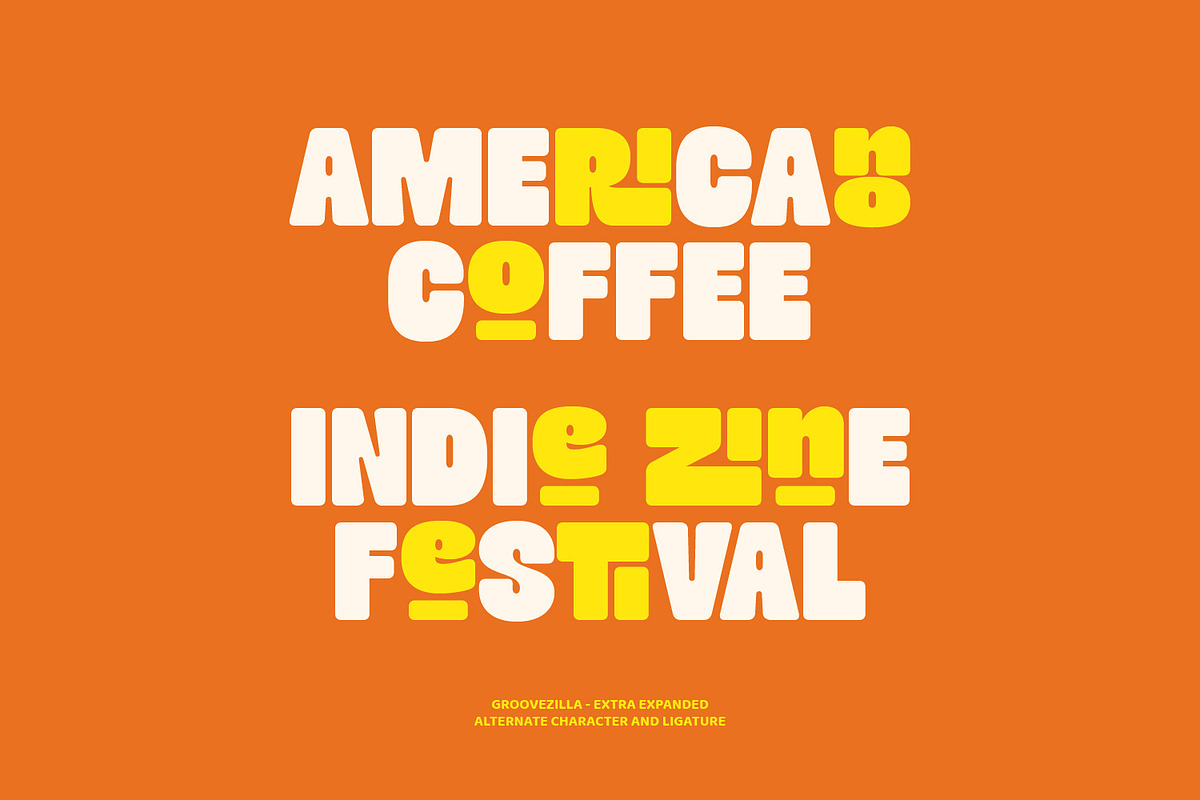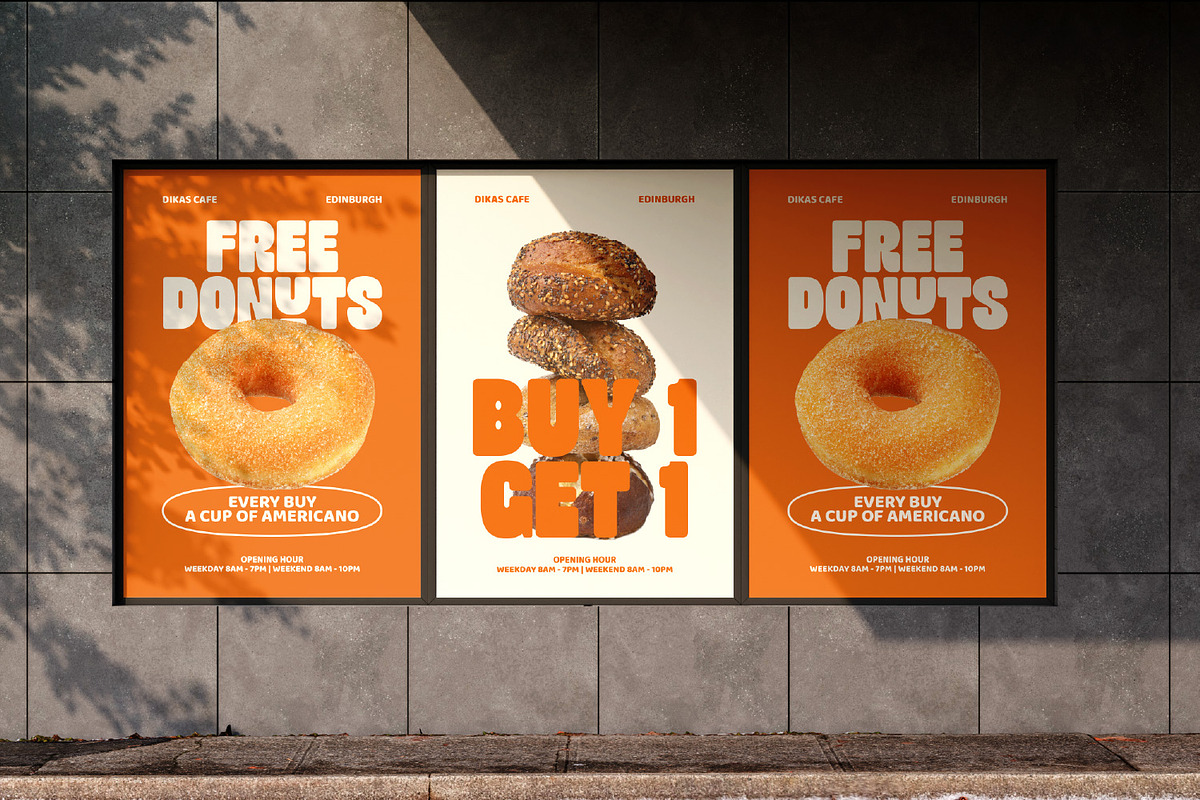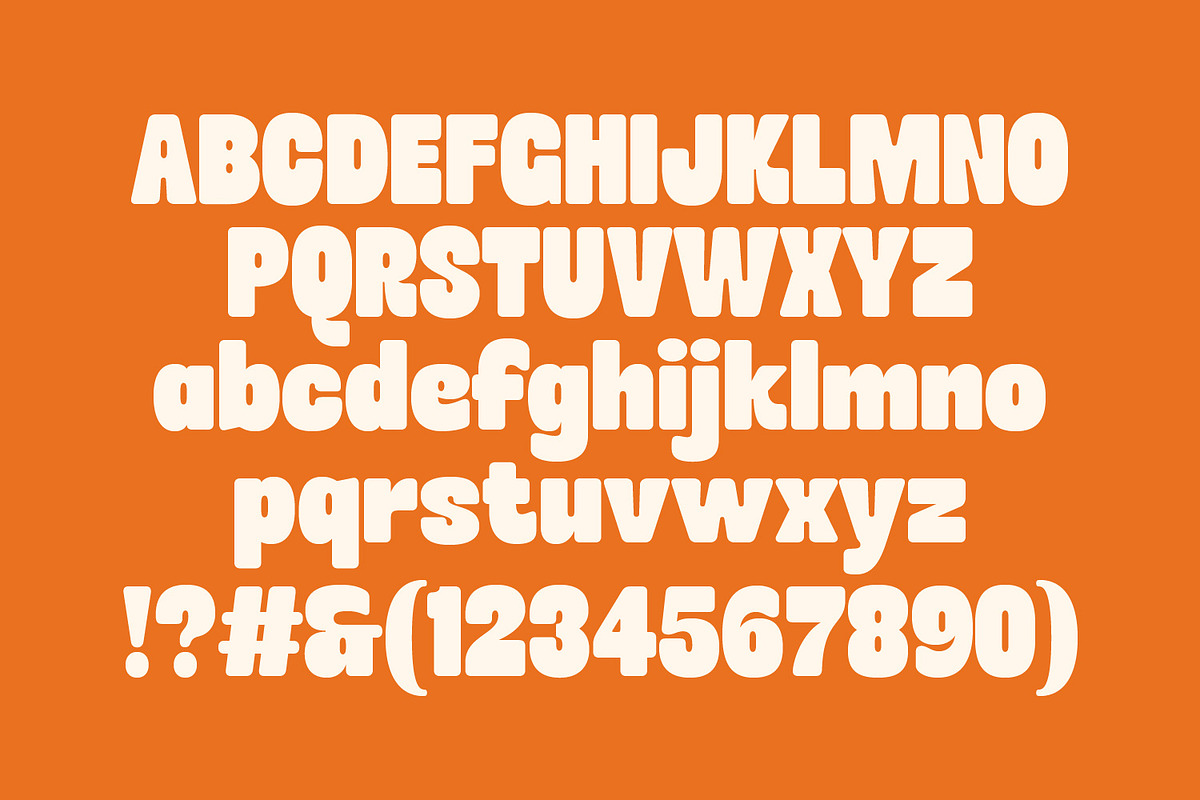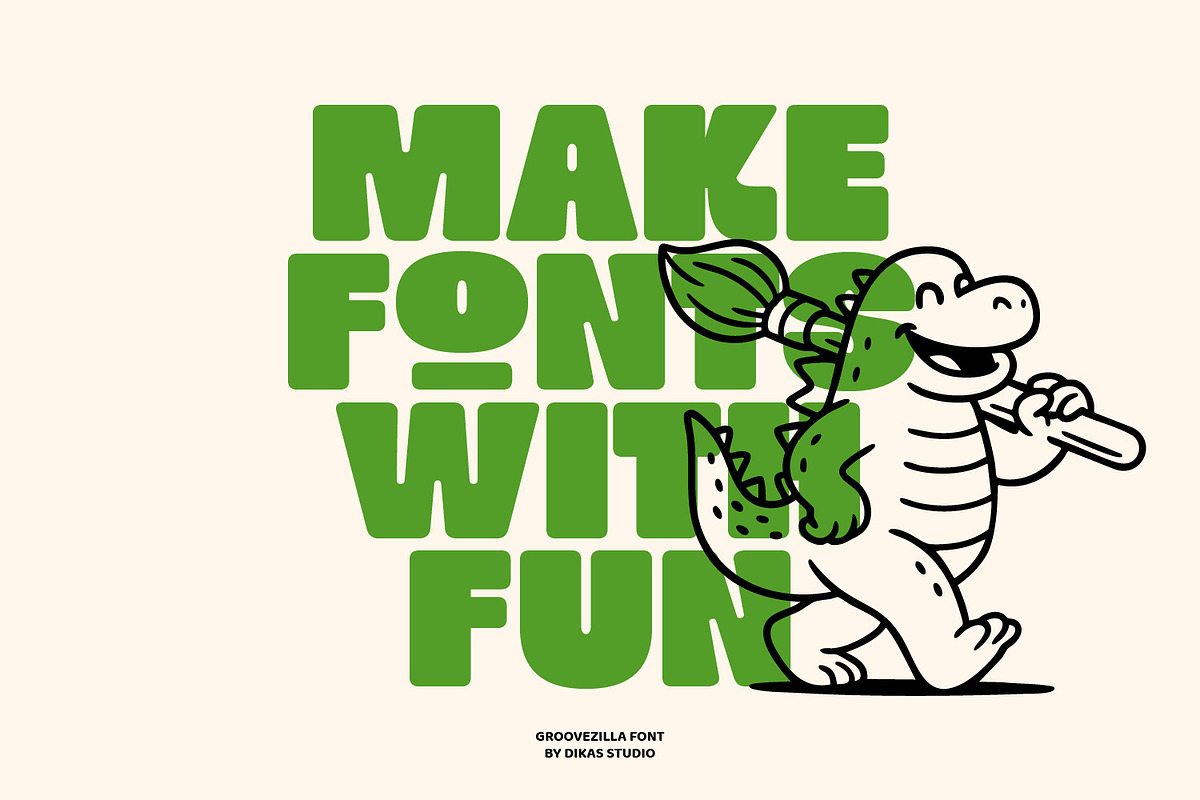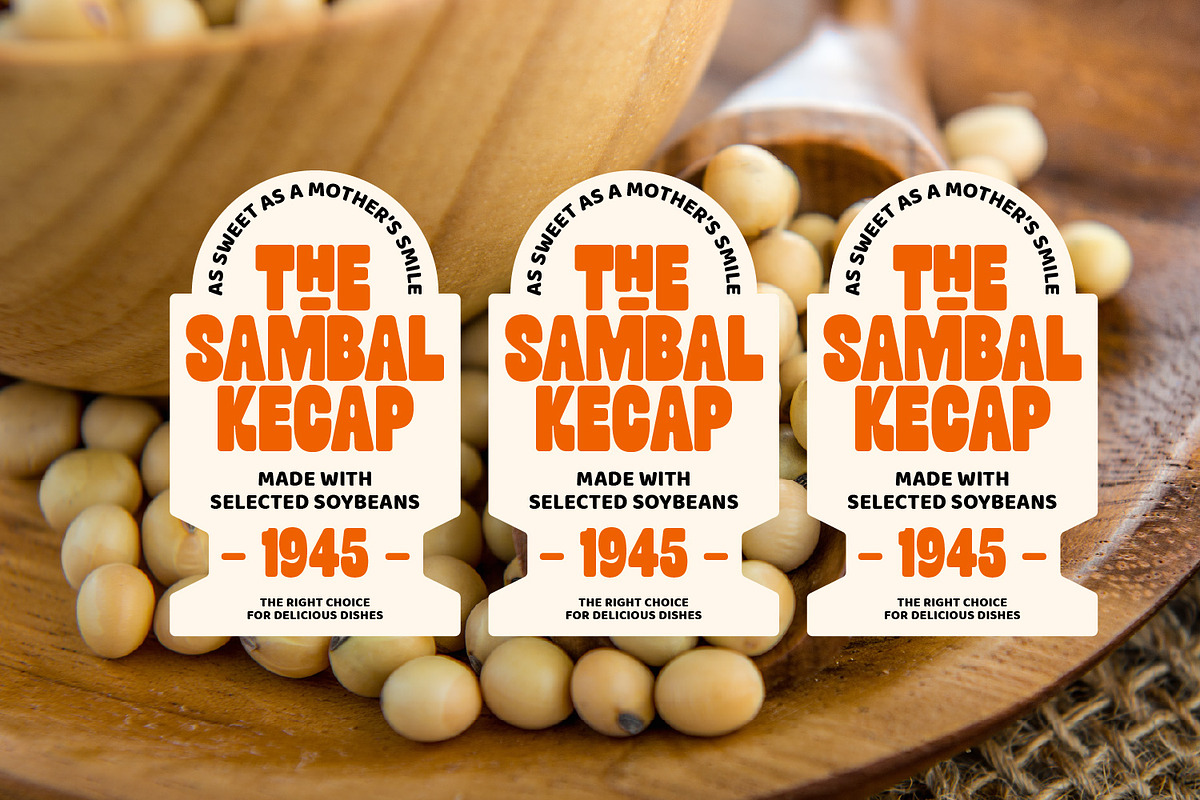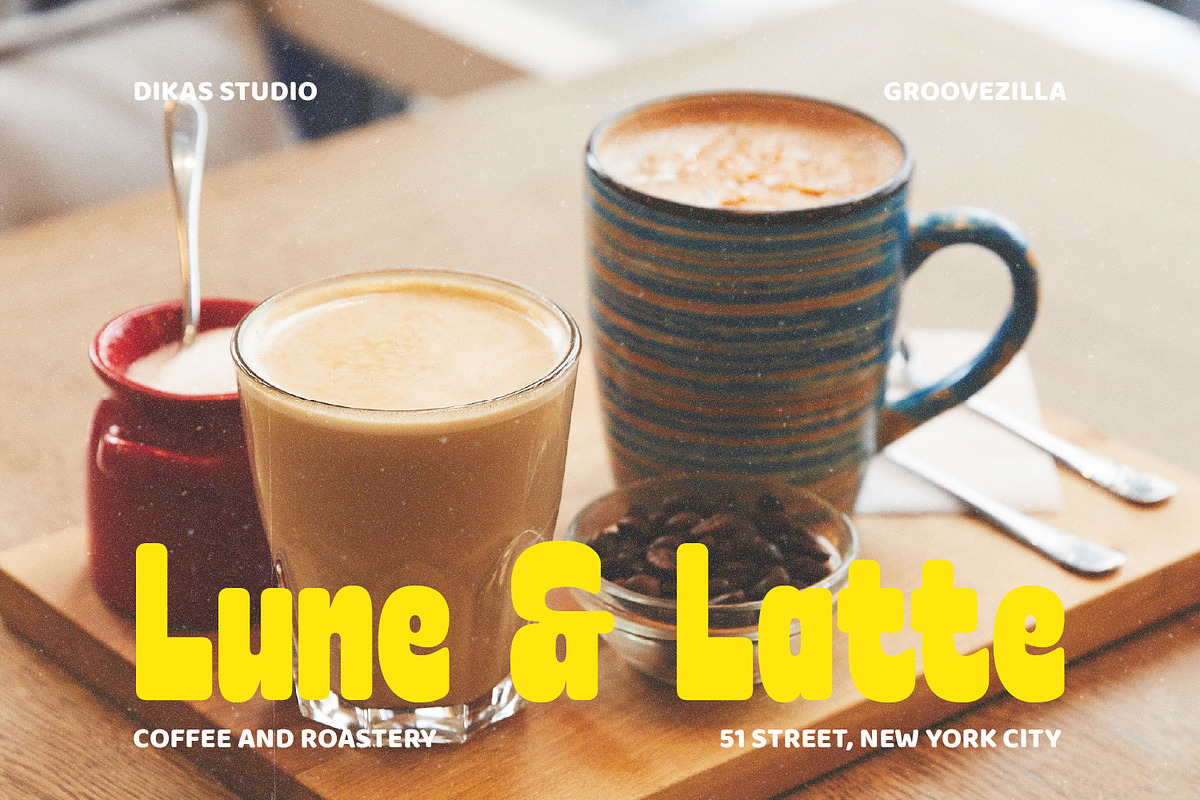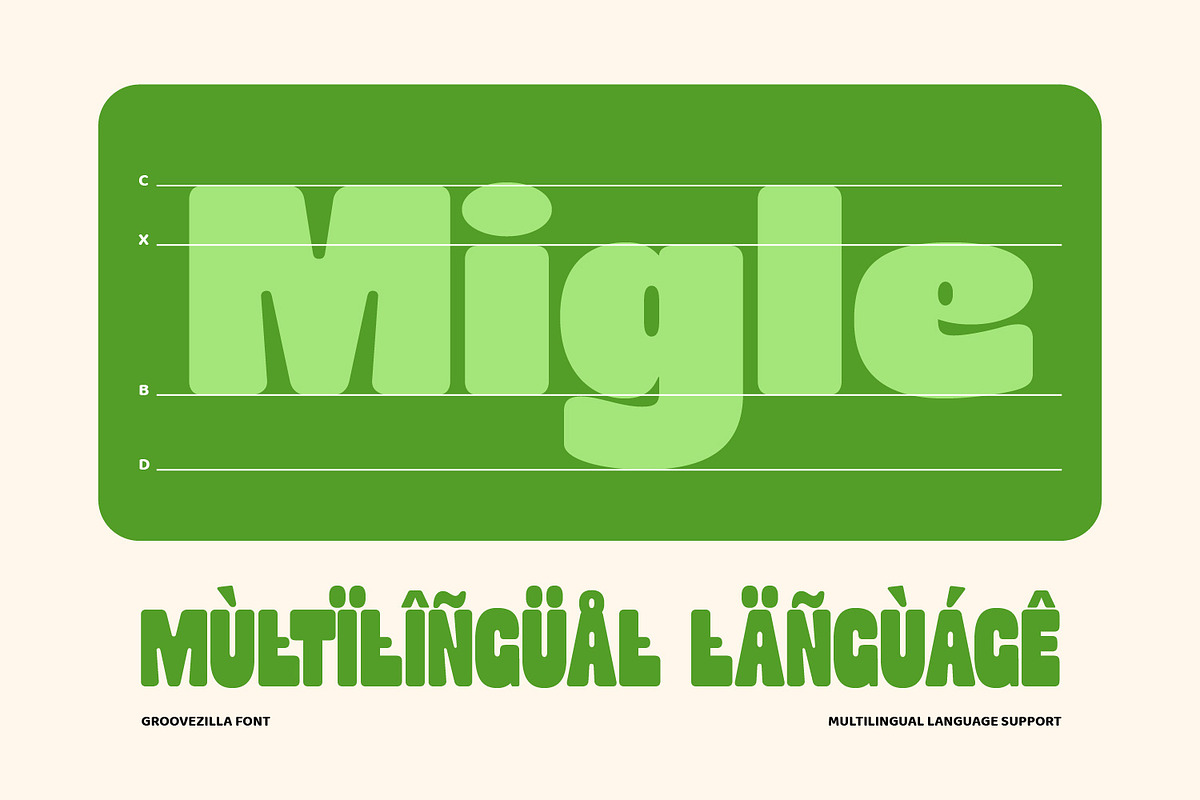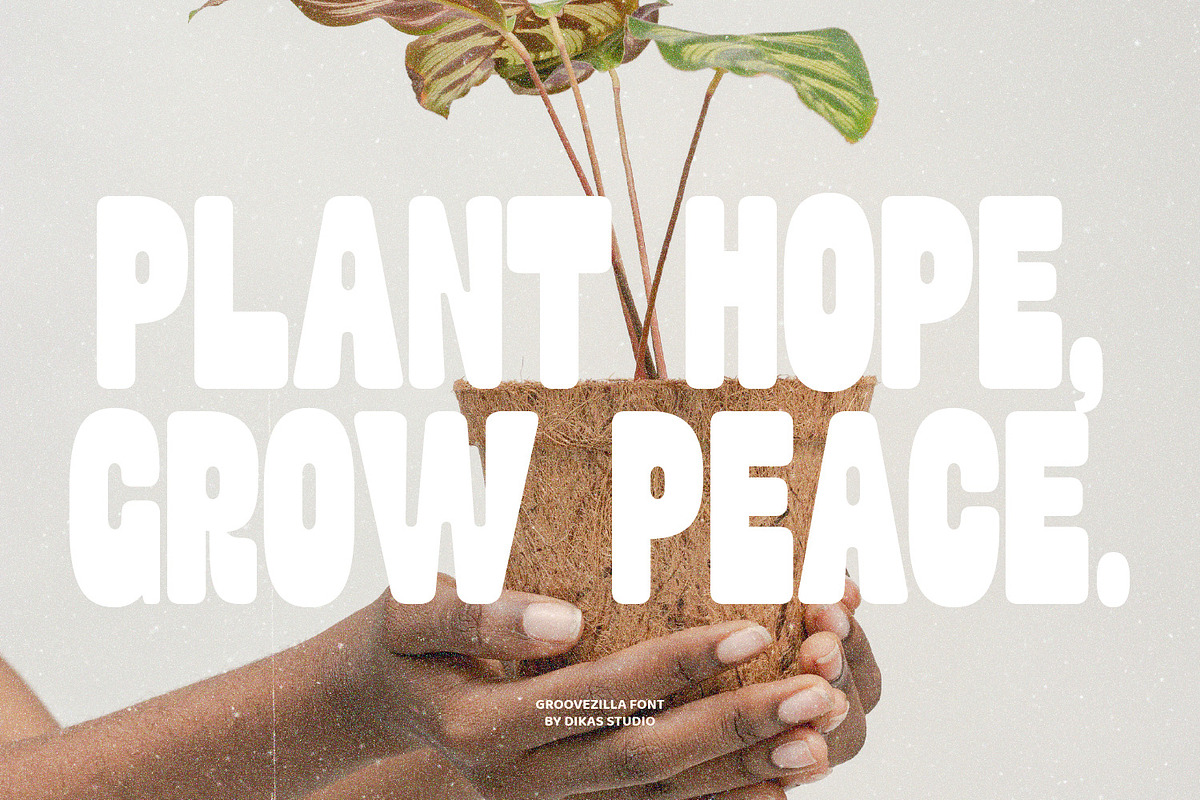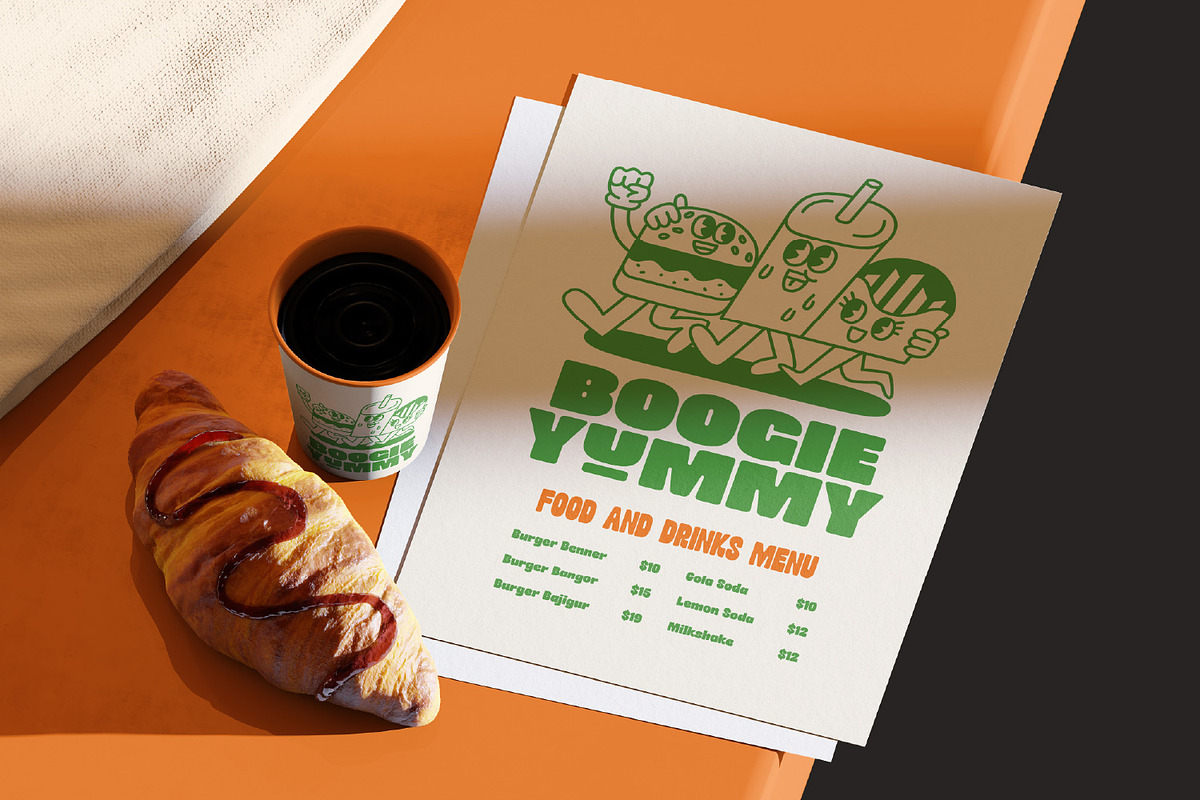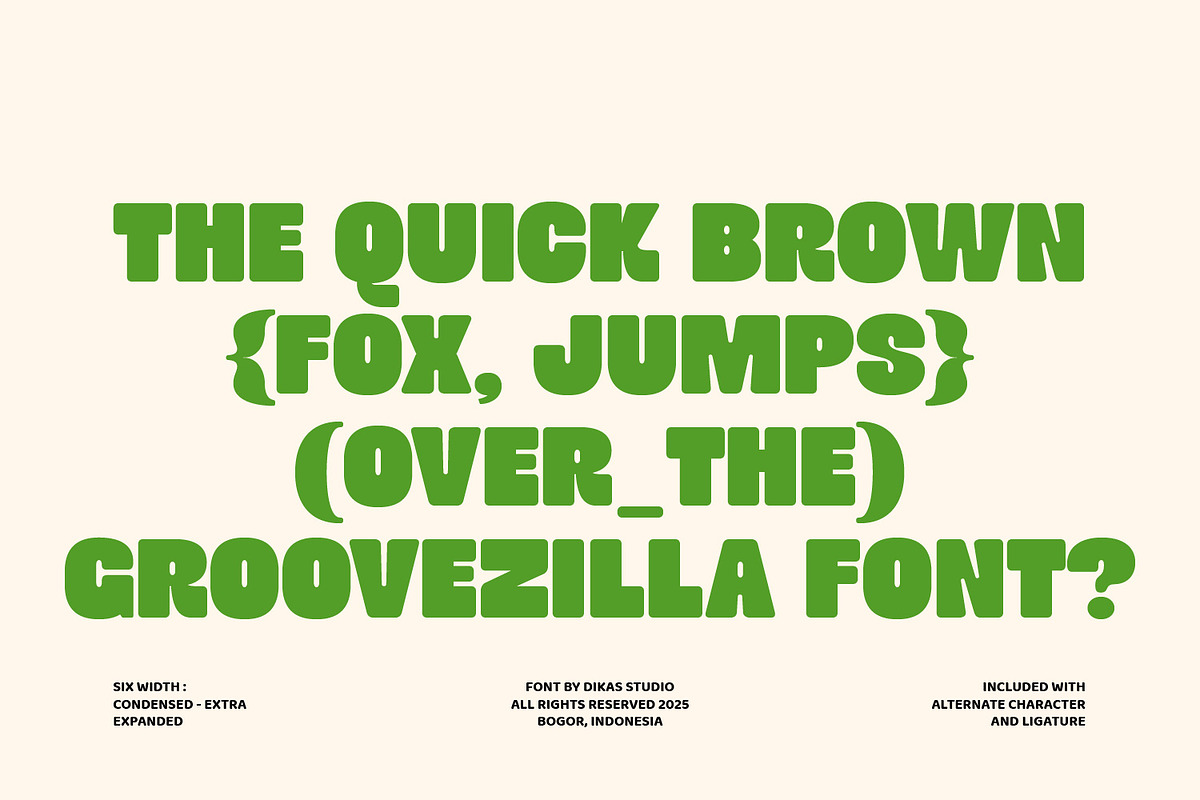
Groovezilla - Retro Bold Fonts
Groovezilla is a retro bold font packed with fun, flavor, and groovy flair. With its soft edges and cheerful personality, this typeface brings a playful, feel-good vibe to any design. Inspired by the funky spirit of vintage aesthetics, Groovezilla is a retro bold font that’s perfect for projects that want to stand out with confidence and style.
Groovezilla comes with 6 width styles — from Condensed to Extra Expanded — and is also available as a variable font, giving you complete control over how bold or wide you want to go. It also includes a wide range of alternate characters and ligatures, allowing you to customize your typography with unique flair.
Whether you're crafting a funky logo, a vibrant poster, or an attention-grabbing headline, Groovezilla delivers loud retro energy and modern fun in every letter. Let your creativity shine with this retro bold font that’s built to move, groove, and make a statement.
Punctuation & Number
Multilingual Language
Multiple Weight & Variable Font
Alternate Character & Ligature